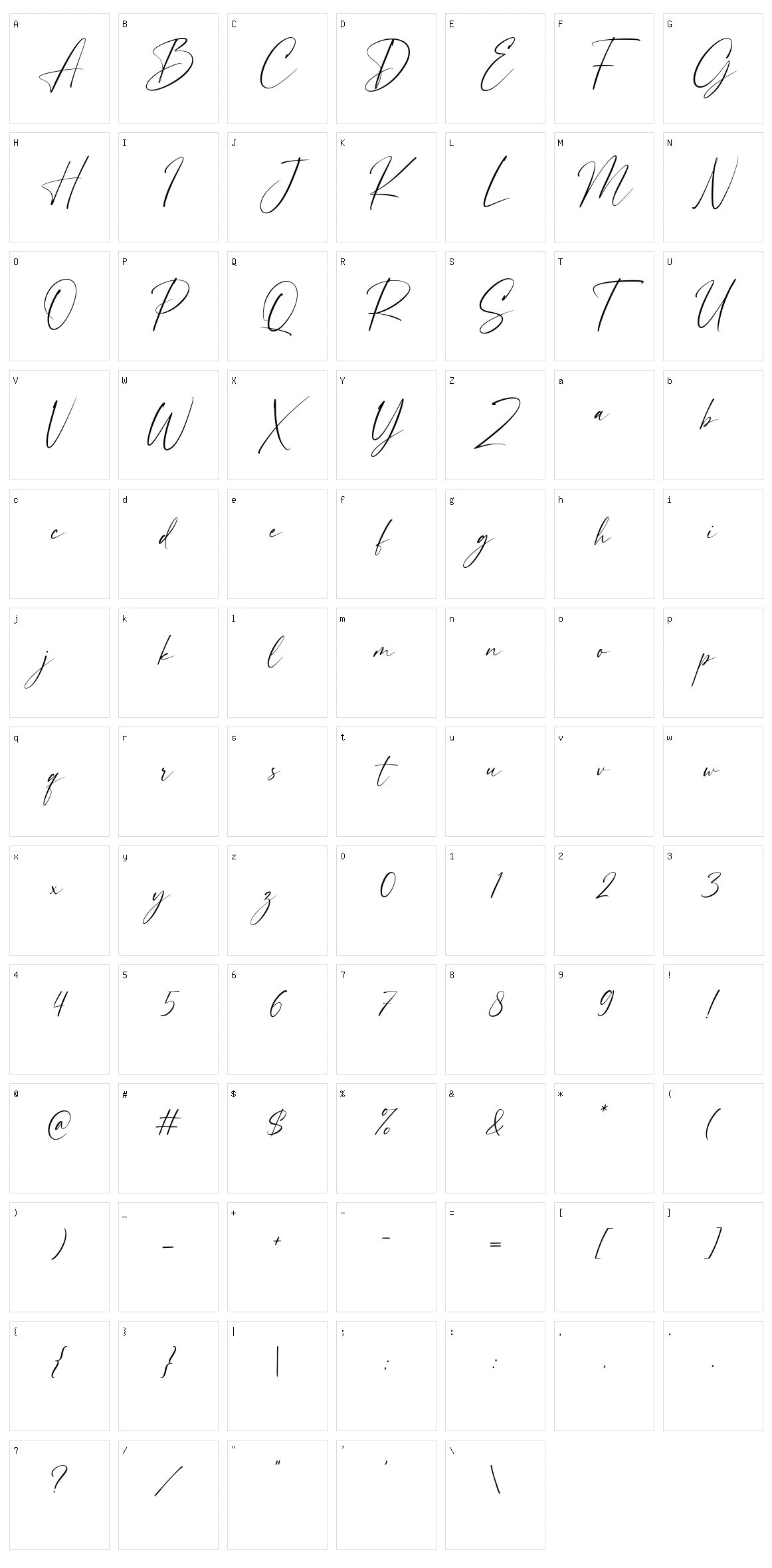
The free font Beauty Handwriting is carefully designed by Nirmana Visual, showcasing a thoughtful balance of creativity and usability and falls under the Script font style. When you download the ZIP file, it contains only 5137.34 KB of font files, making it lightweight and quick to download. Please review the license details below to understand permitted usage and distribution rights. If license information is not available, we recommend using this font for personal projects only or contacting the author directly for commercial usage permissions.